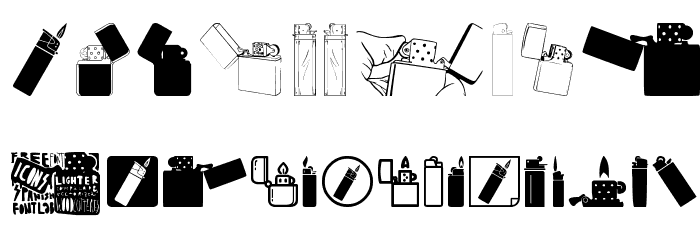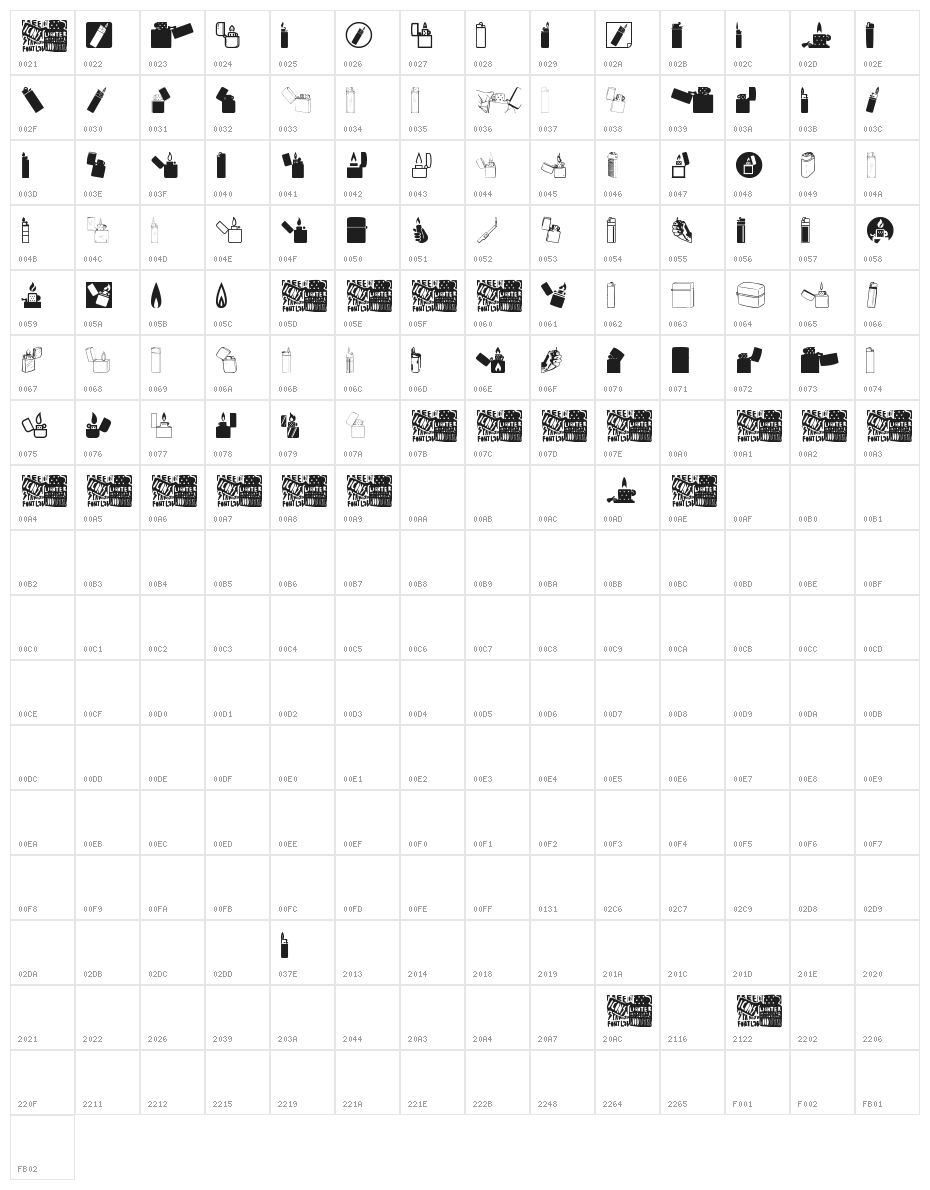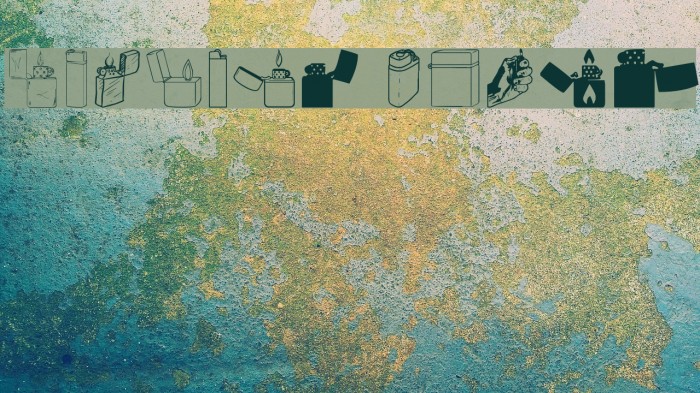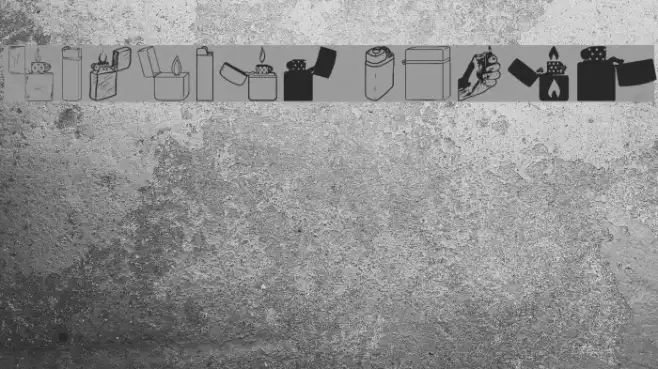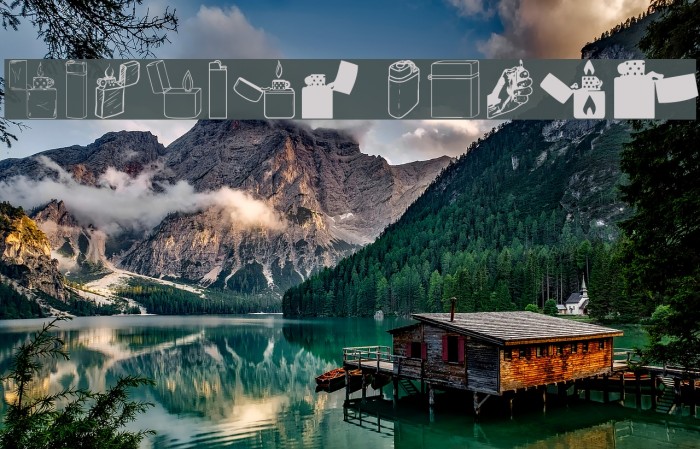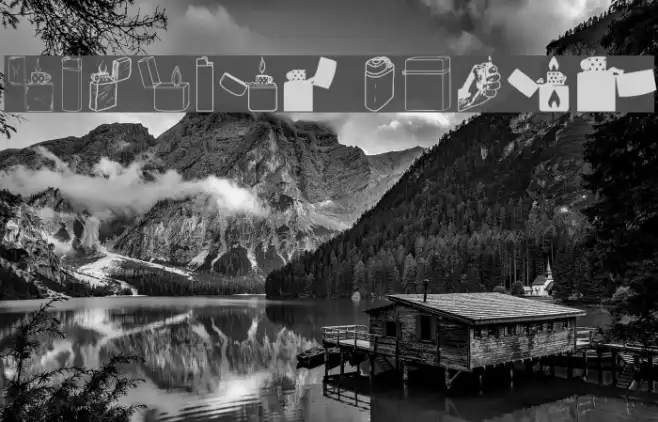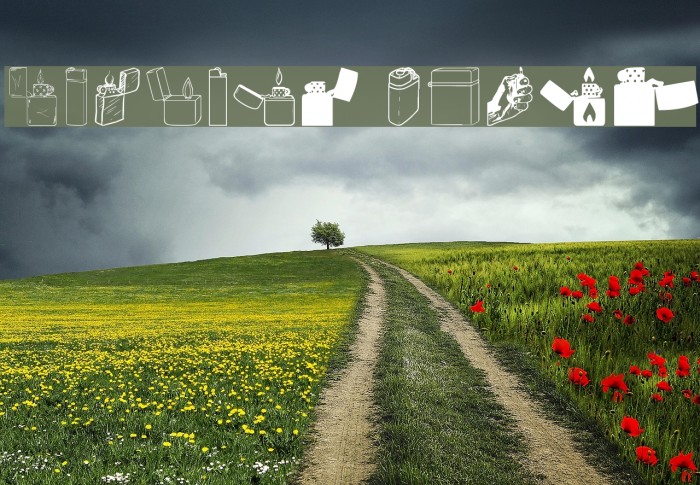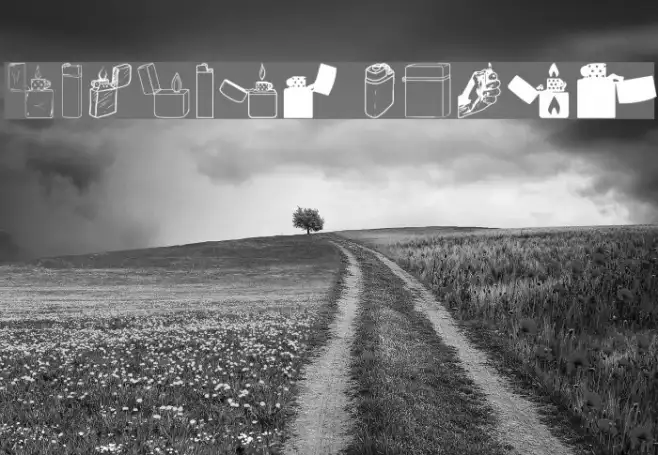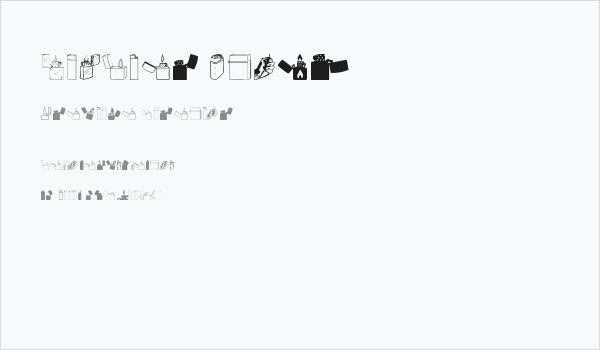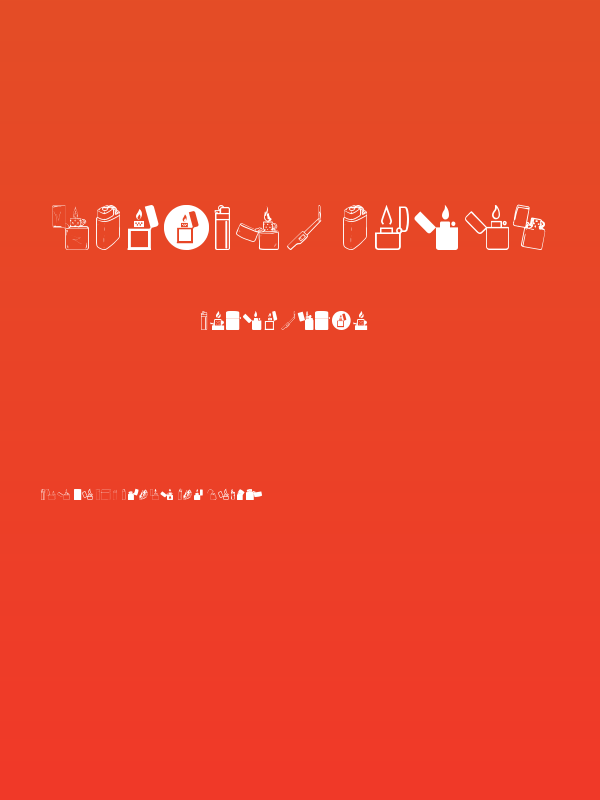
Lighter Icons Font
Lighter Icons Description
A collection of pictogram-style icons depicting various lighters, including flip-top, disposable, and hand-held lighters, shown in both solid and outlined styles. The icons are simple, bold, and highly recognizable, with some featuring hands or flames for added context.
| Overall Style | Decorative, Modern, Pictogram |
| Use Case | Icons, Logos, Themed Graphics, UI Elements |
| Proposed Projects | Perfect for infographics, signage, packaging, app icons, and themed branding. |